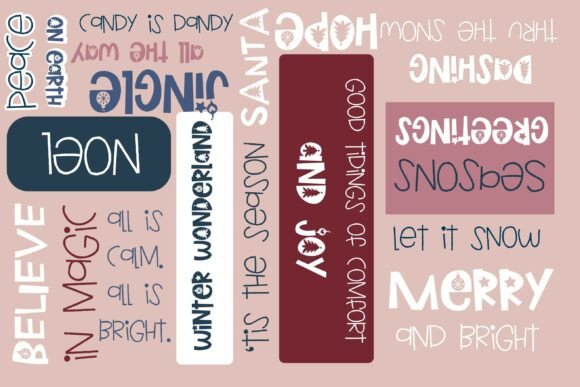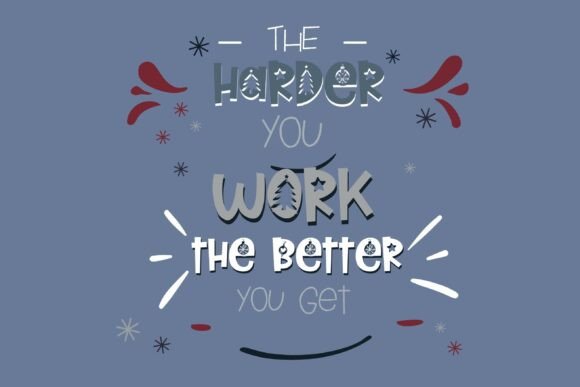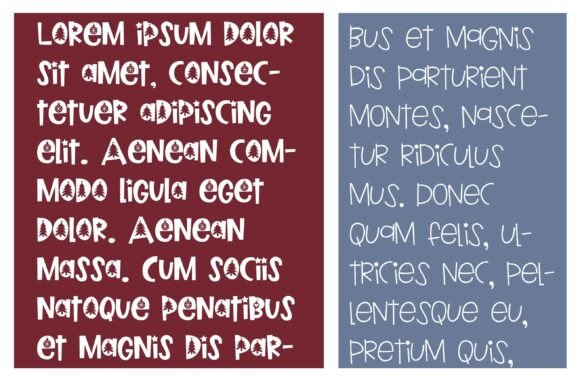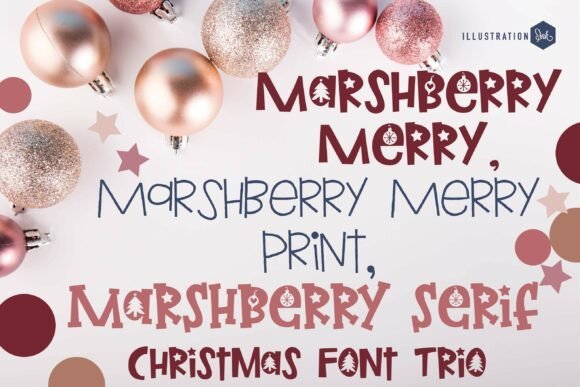
Introduction to Marshberry Merry Trio Font
This hand-crafted font trio combines a hand-crafted decorative font sporting holiday illustrations, a serif version, as well as a perfectly coordinated print.
Bonus tag dingbat font included With all family members combined of the 3 fonts, you get 8 fonts altogether.
Key Features of Marshberry Merry Trio Font